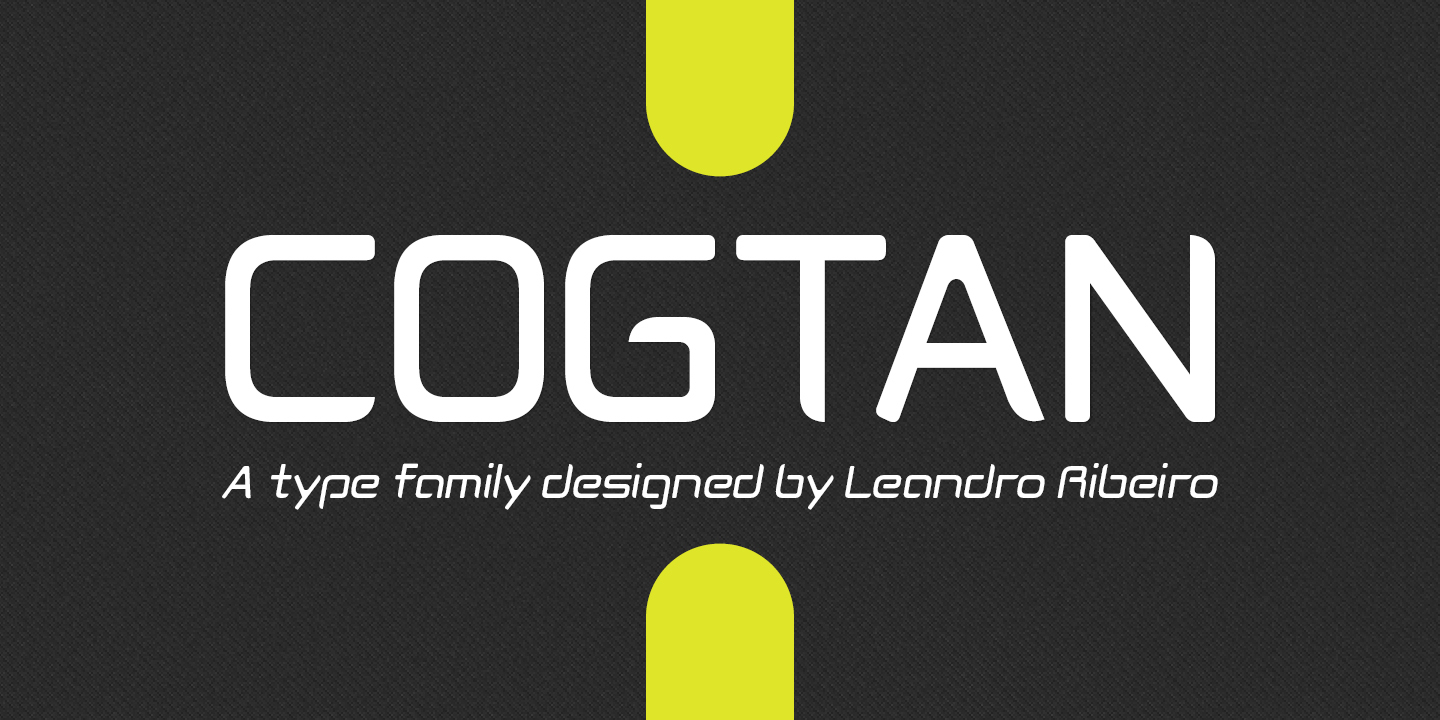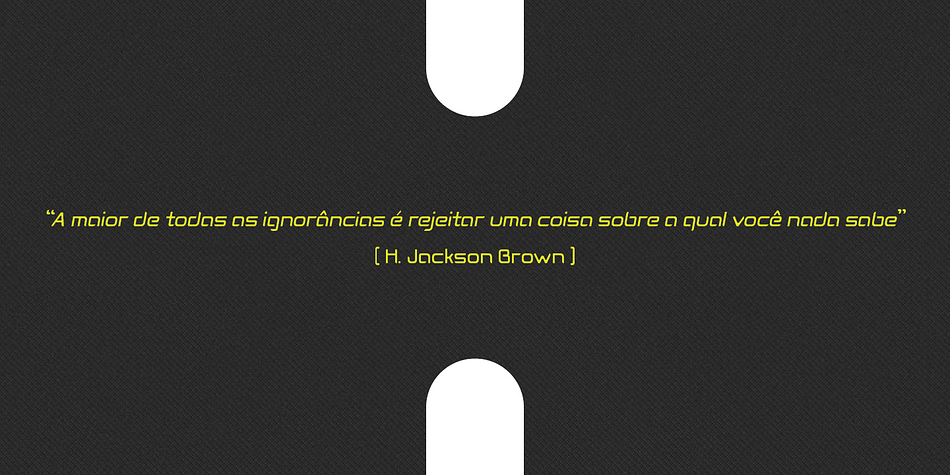
Cogtan
Designed by Leandro Ribeiro Machado, Cogtan is a display sans font family. This typeface has ten styles and was published by Leandro Ribeiro Machado.
Cogtan is a source geometric shape with respect single structure.
The shape of each character is very simple and contemporary.
I recommend to use the title or short phrase on posters and especially useful for design work.
Cogtan is a a ten font family.
Cogtan is a ten font, display sans family by Leandro Ribeiro Machado.
Cogtan is designed by Leandro Ribeiro Machado, includes OpenType Standard Ligatures, has extensive Latin language support and supports the languages Cyrillic, Greek and  more (138).
Designed by Leandro Ribeiro Machado, Cogtan is a display sans font family.
This typeface has ten styles  and was published by Leandro Ribeiro Machado.
Cogtan includes OpenType Standard Ligatures, has extensive Latin language support and supports the languages Cyrillic, Greek and  more (138).
Cogtan is a source geometric shape with respect single structure. The shape of each character is very simple and contemporary.
I recommend to use the title or short phrase on posters and especially useful for design work.